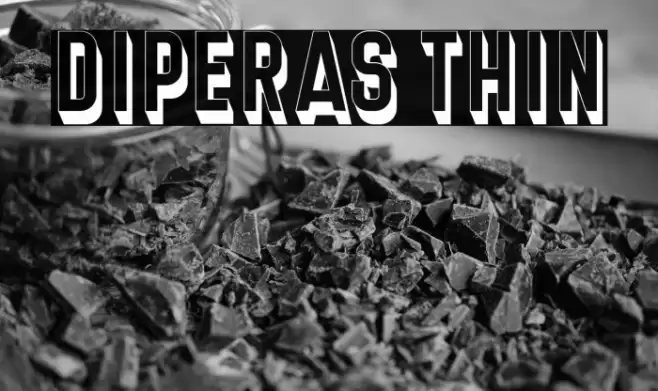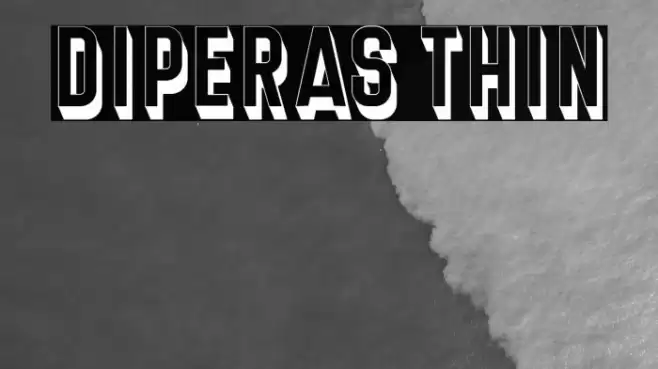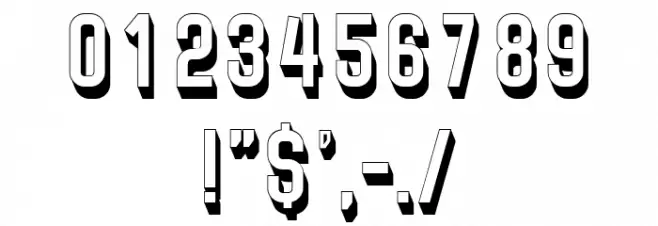
Diperas Thin Font
Diperas Thin Description
This font features a bold, three-dimensional design with a strong shadow effect, giving it a striking and impactful appearance. The uppercase letters are uniform in height, with clean, straight lines and sharp angles that convey a sense of modernity and strength. The numbers and special characters maintain this consistent style, ensuring a cohesive look across all elements. The font's design is reminiscent of vintage signage or retro posters, making it ideal for projects that require a bold statement. Its unique shadowing adds depth and dimension, making it stand out in any design context.
A bold, three-dimensional font with strong shadow effects and a modern, impactful style from Uncategorized fonts.
- Font: Diperas Thin
- Proposed Projects: Ideal for retro-themed posters, eye-catching headlines, branding materials, and signage that requires a bold statement.
- Overall Style: Vintage
- Use Case: Headlines, Logos, Signage